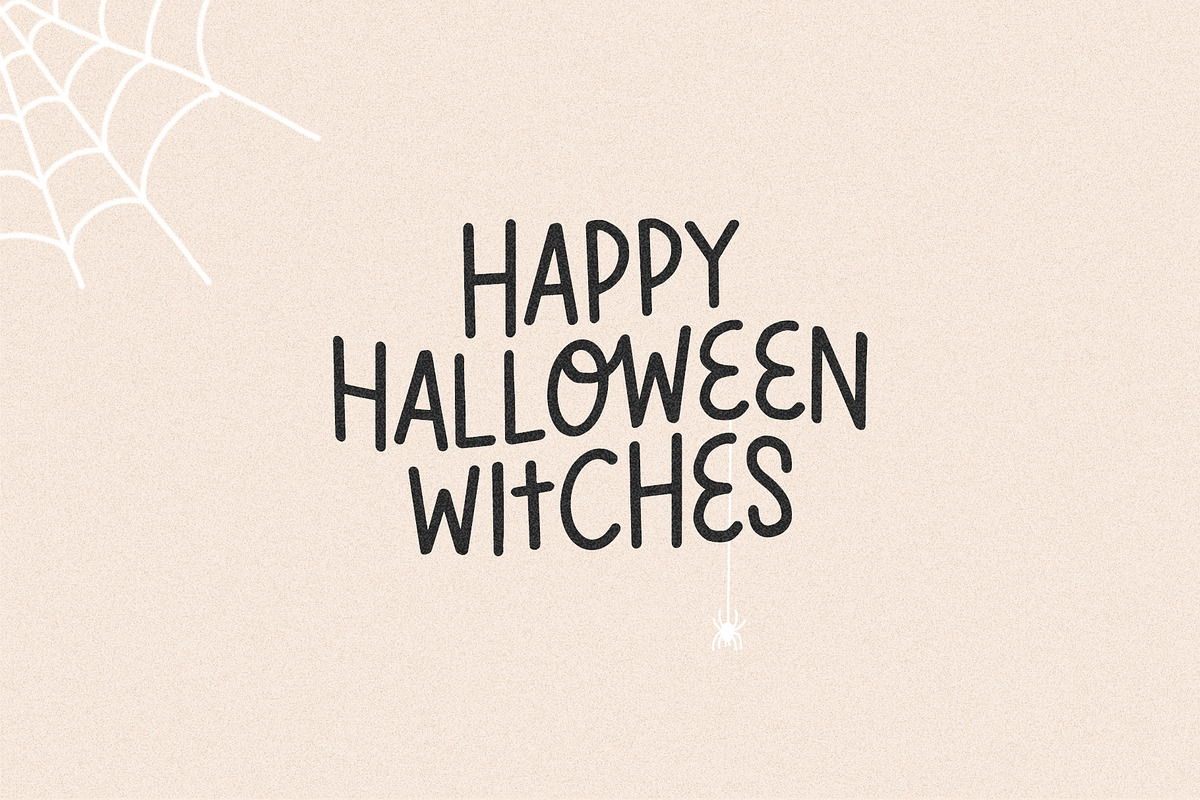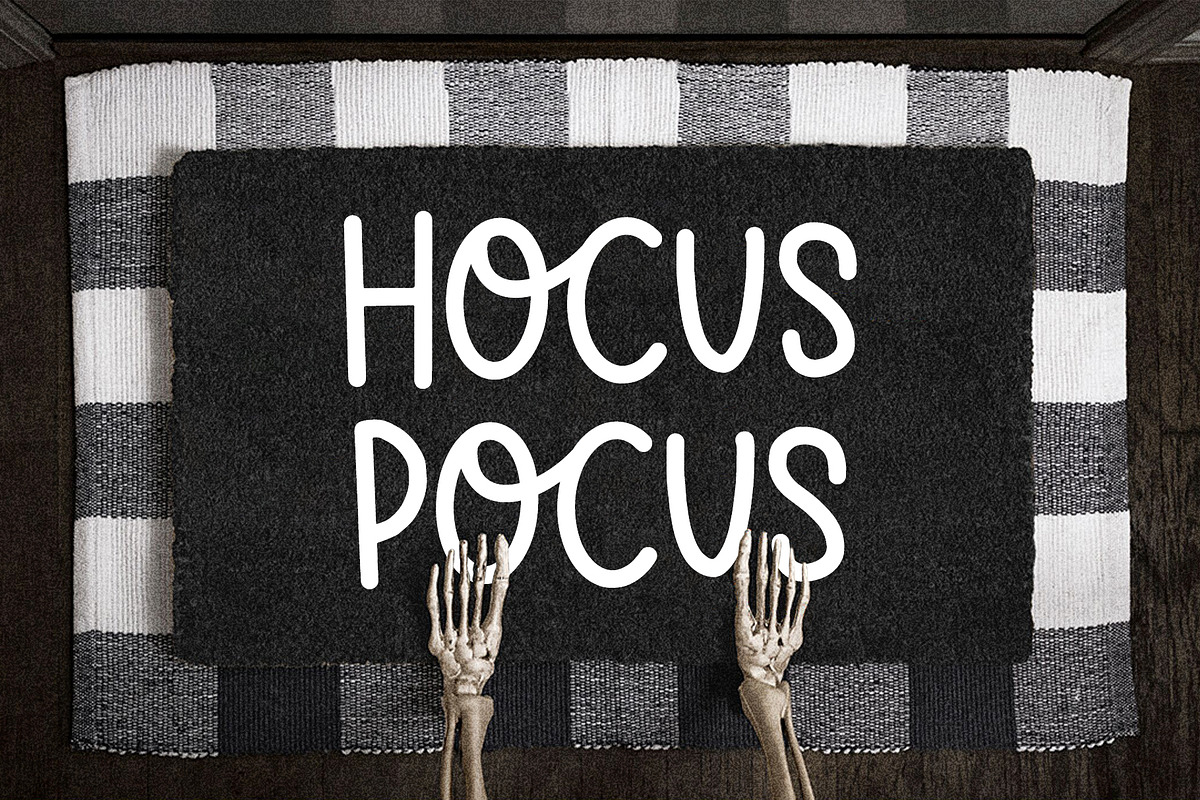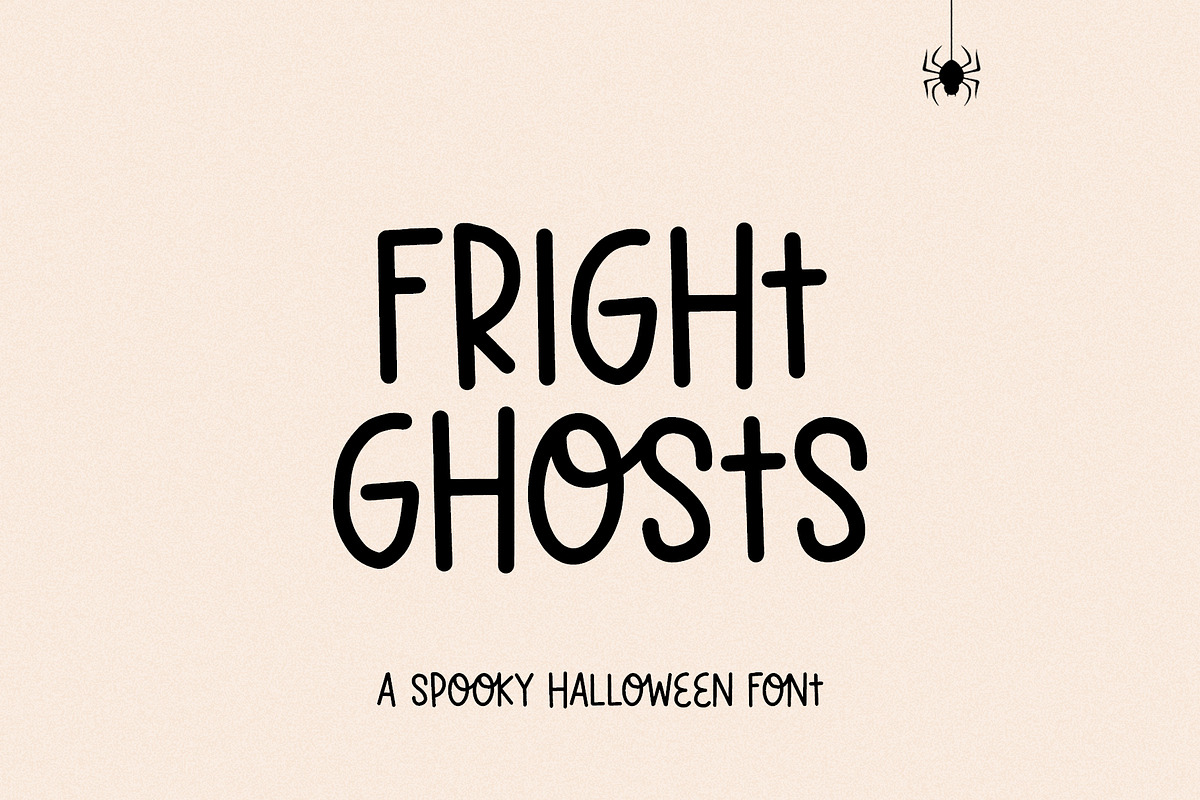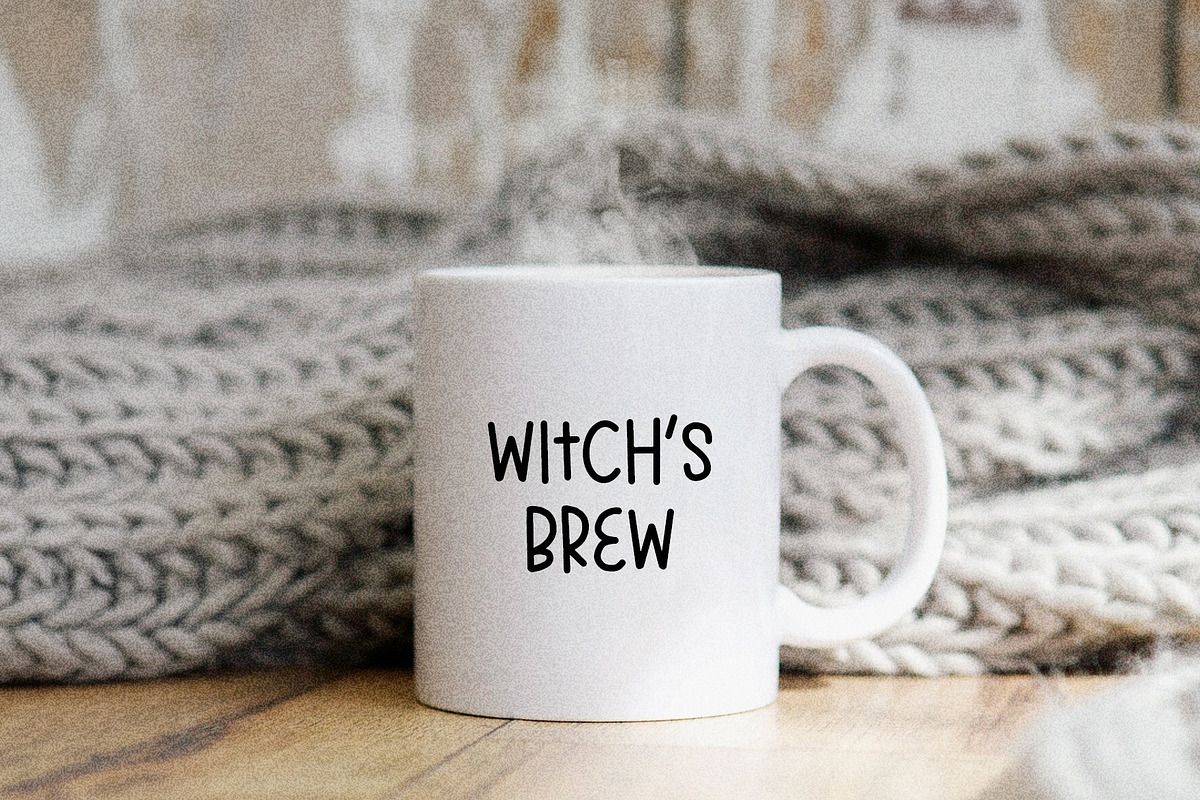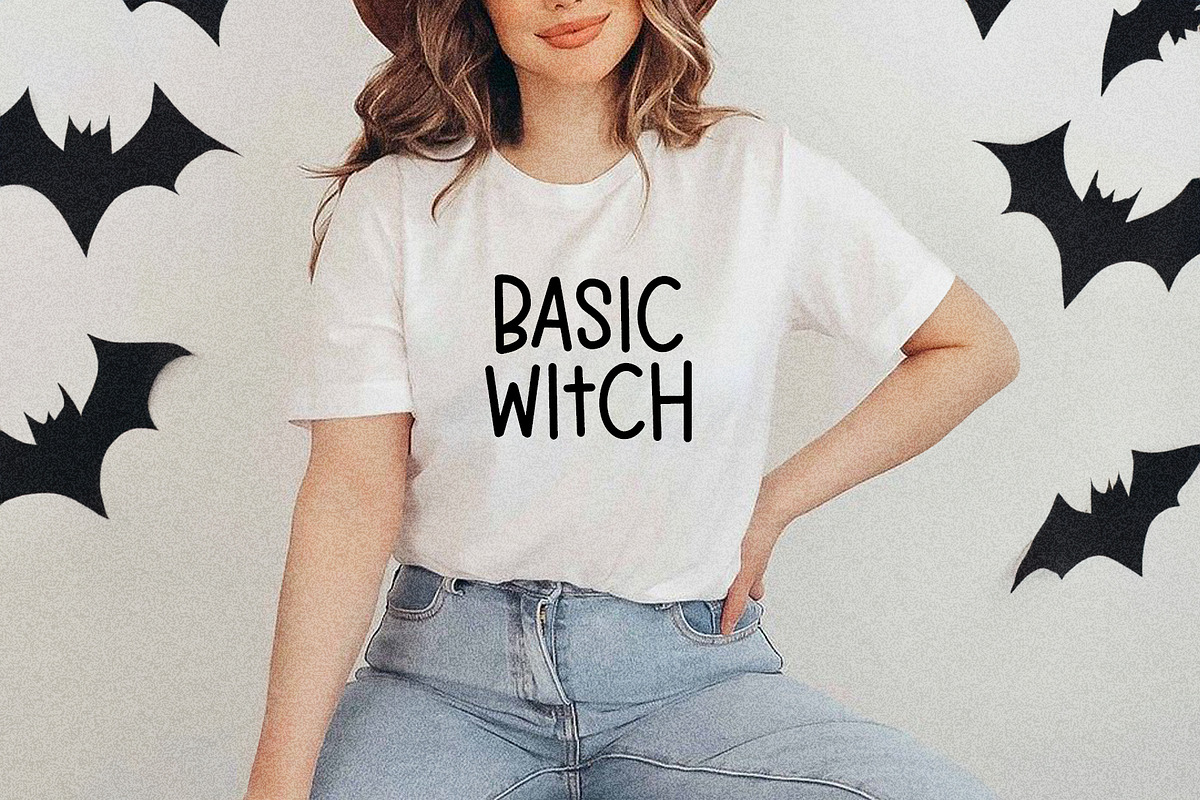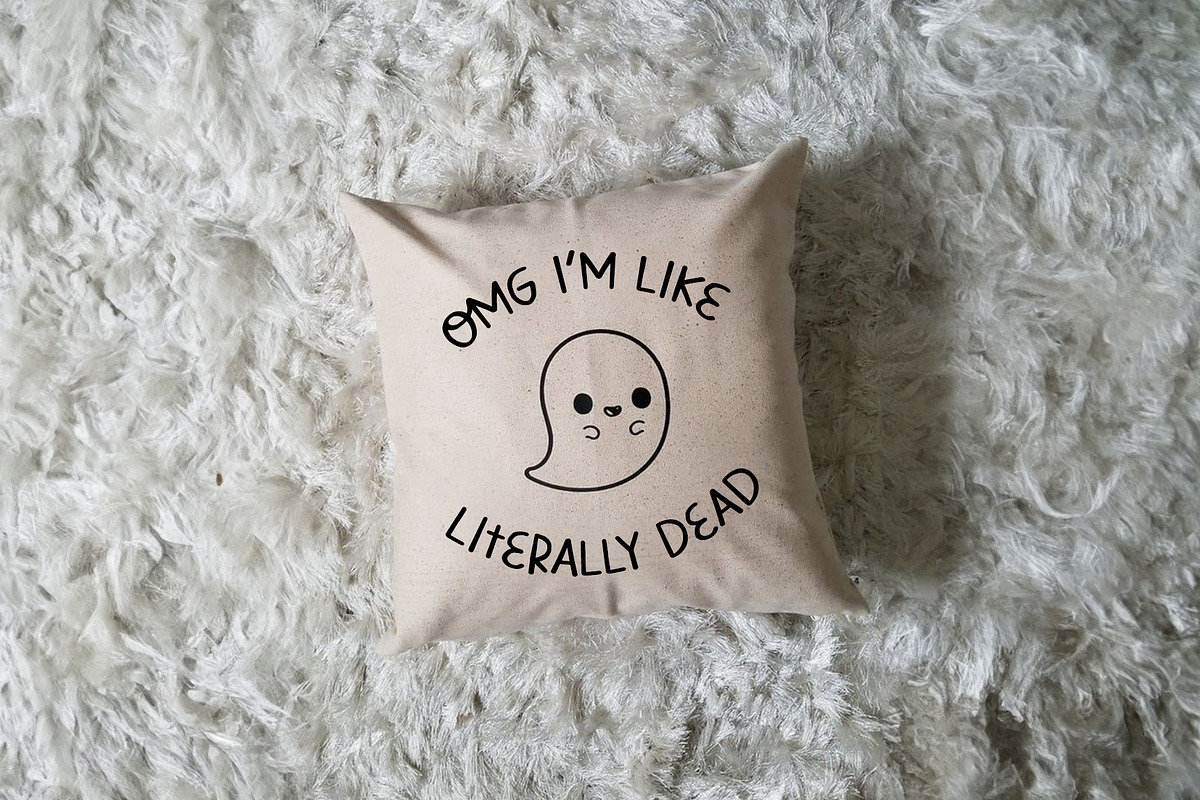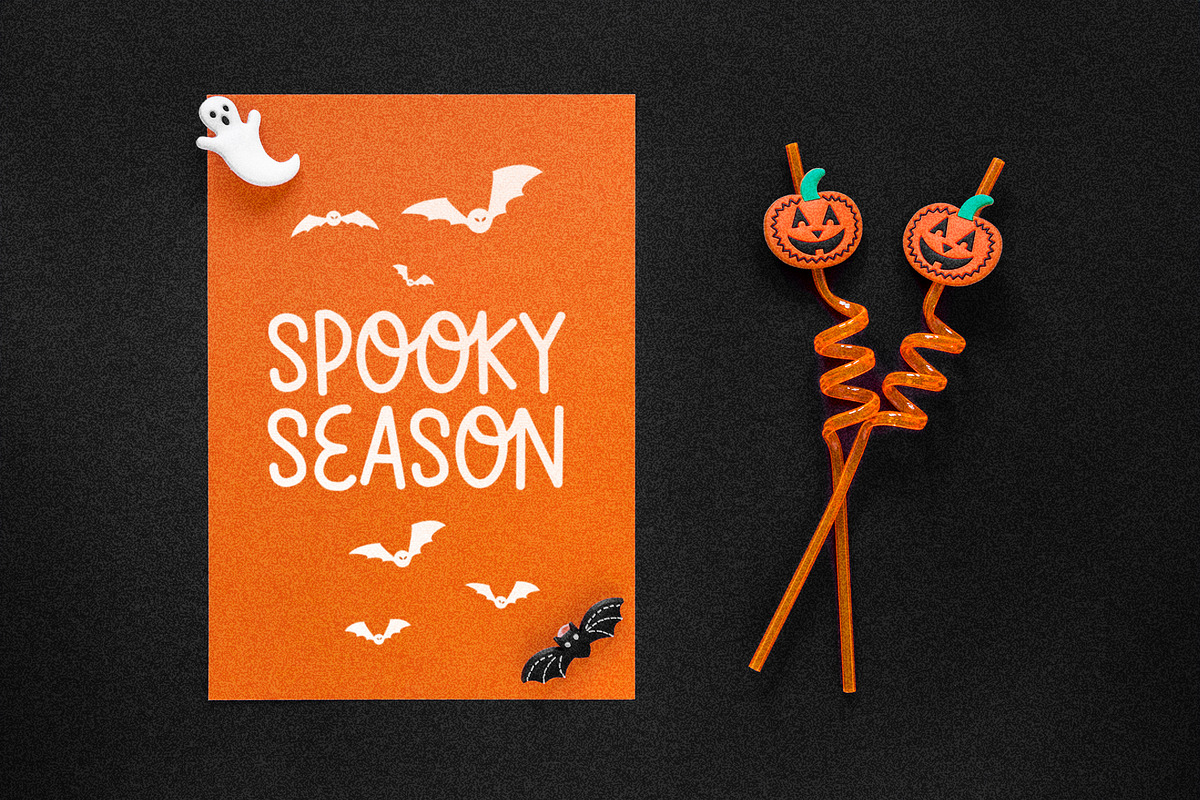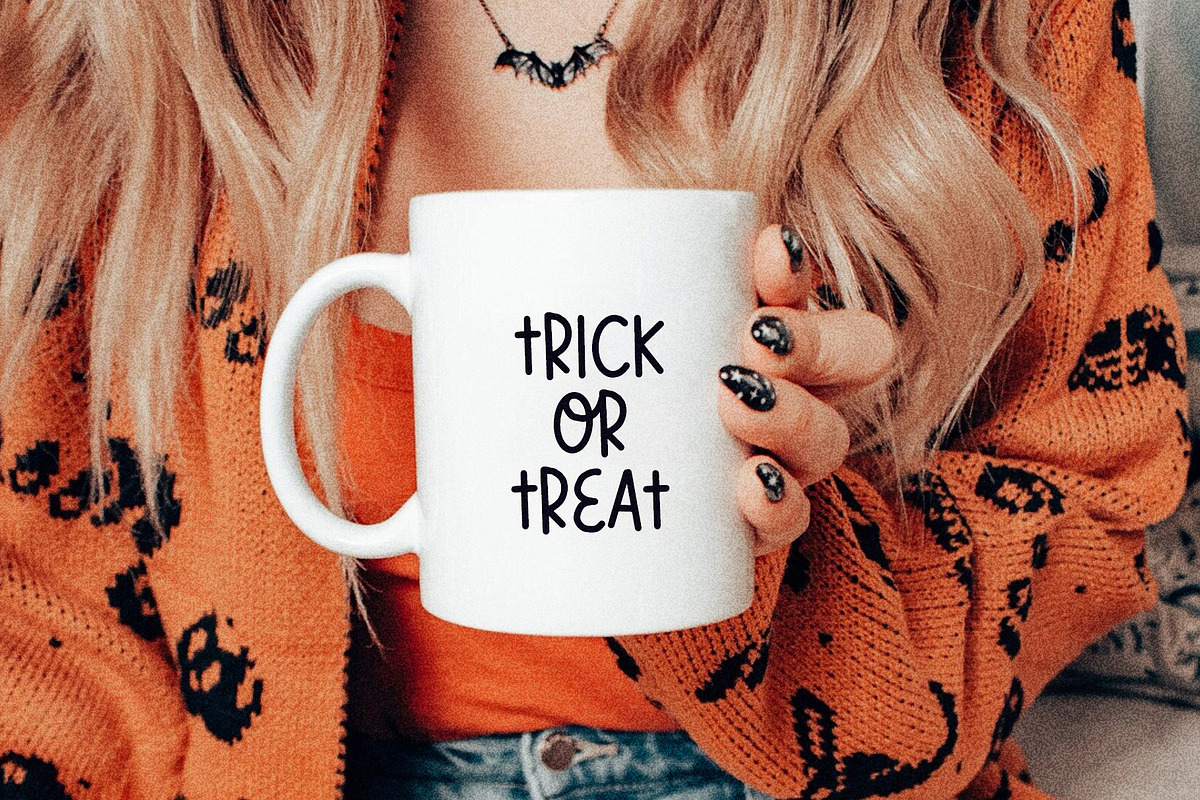
Fright Ghosts spooky halloween font
Fright Ghosts spooky halloween font will be perfect for halloween lettering, beautiful frame for your home, book covers, greeting cards, logos, marketing, magazines or anything that requires cute handwritten lettering :)